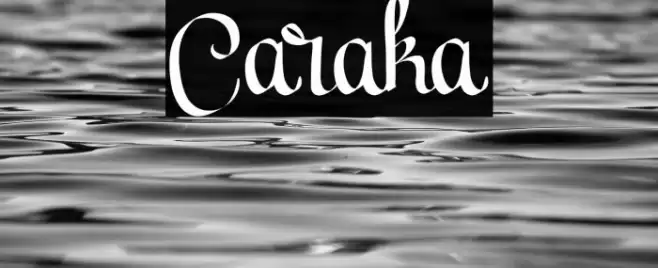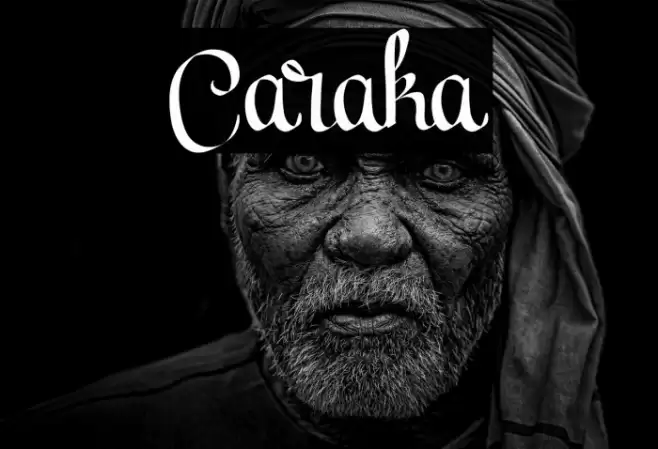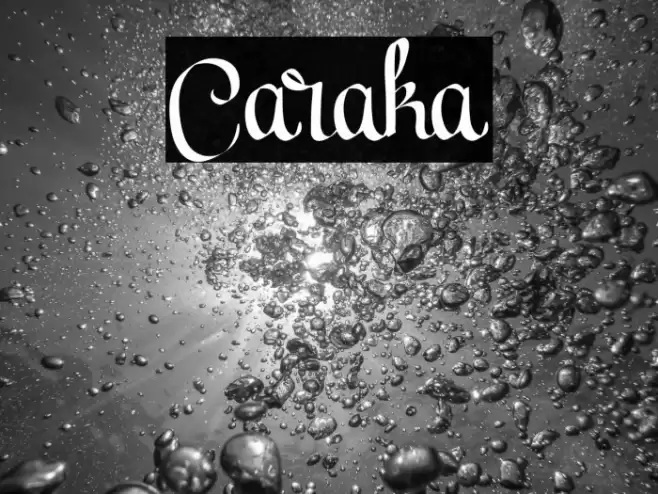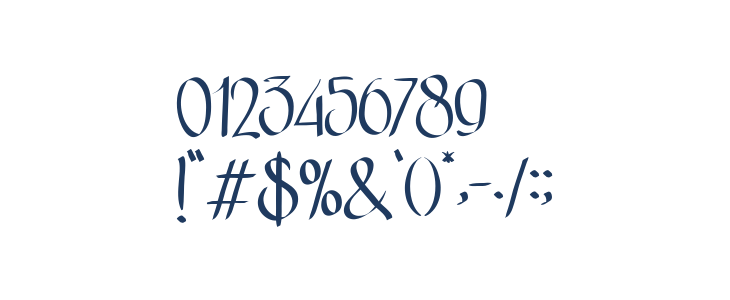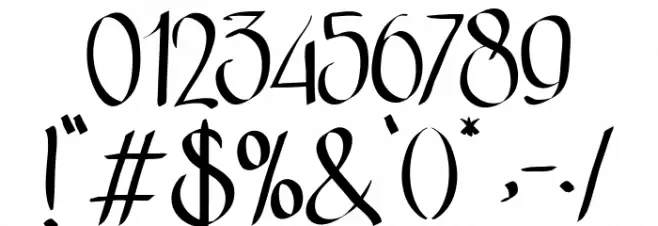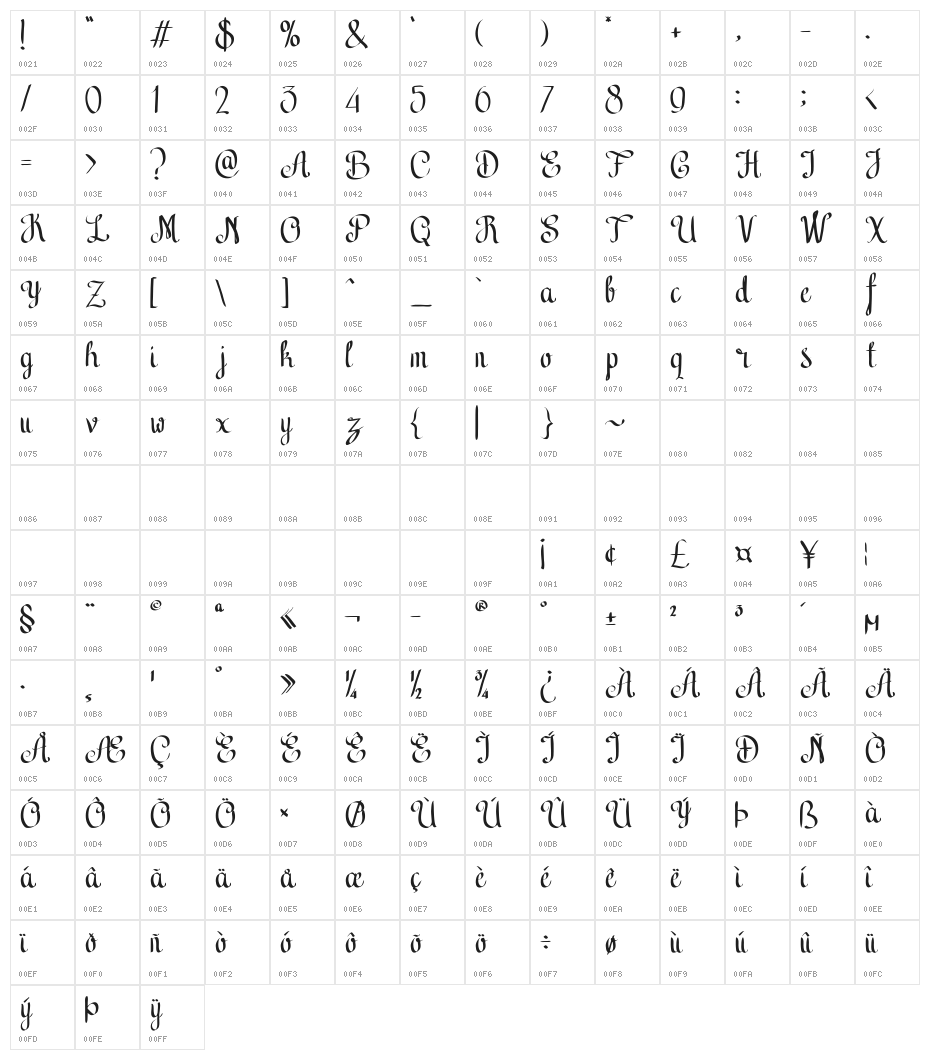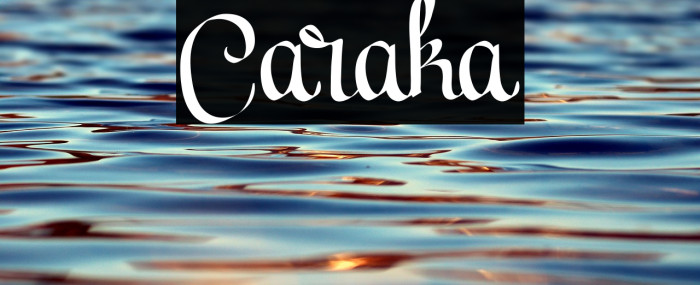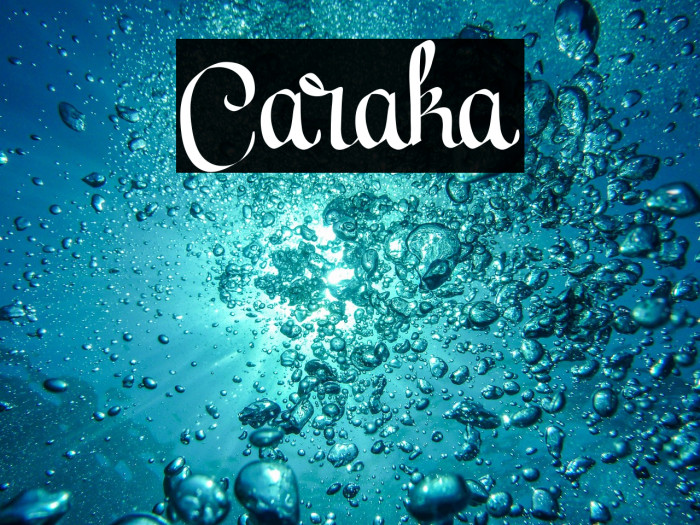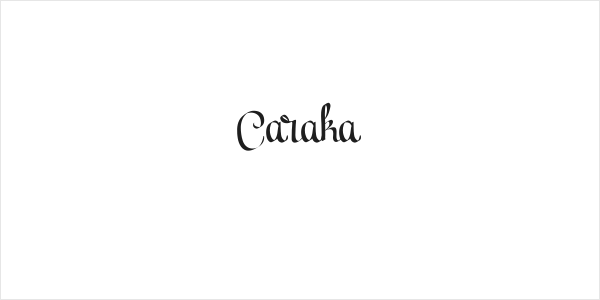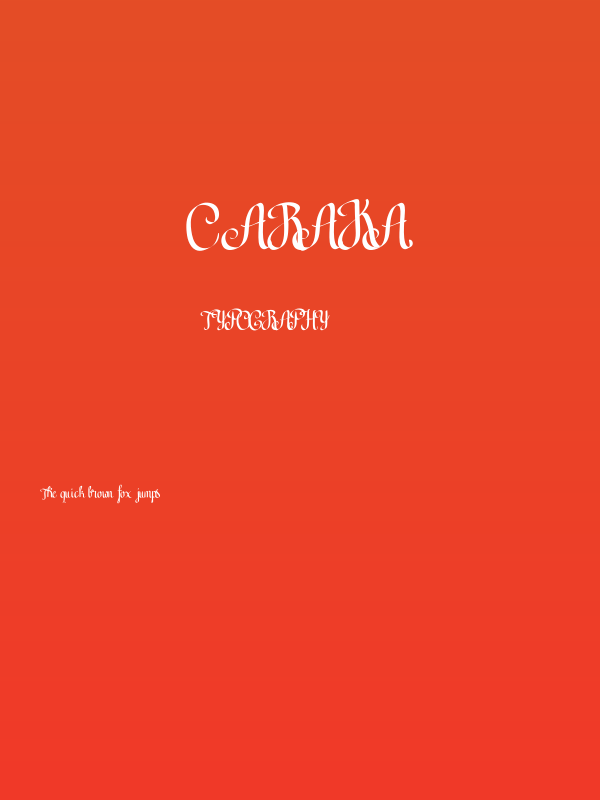
Caraka Font
Caraka Description
This font features a unique and artistic script style, characterized by its flowing and interconnected letterforms. The uppercase letters exhibit elegant swirls and loops, creating a sense of movement and fluidity. The lowercase letters maintain a consistent style, with some characters extending below the baseline, adding to the font's dynamic appearance. The numerals are designed with a similar flair, ensuring cohesion across all characters. Special characters are thoughtfully integrated, maintaining the overall aesthetic. This font's bold strokes and high contrast make it stand out, while its decorative elements lend it a sophisticated and artistic feel.
An artistic script font with flowing, interconnected letterforms and high contrast from Regular fonts.
- Proposed Projects: Ideal for wedding invitations, branding projects, logos, and artistic posters.
- Use Case: Logos, Invitations, Artistic projects